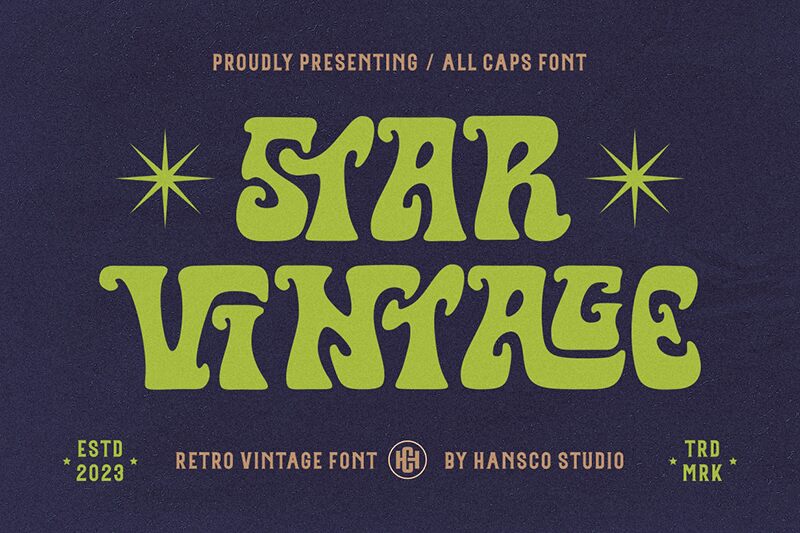
Star Vintage
Star Vintage font by HansCo is a groovy and whimsical display typeface. Its nostalgic vibe references a historical design period with ornate swirls and stylistic curves. The bold appearance adds to the visually engaging and charming aesthetic that influences contemporary designs.
This free display font fits branding projects for vintage-themed products as well as poster design emulating mid-20th century styles. It’s useful for packaging ideas in cosmetics, food and beverage labels, task planner covers, boutique logos, bag prints and tags, invitations, greeting cards, quote posters, stationery items like notebooks or binders.